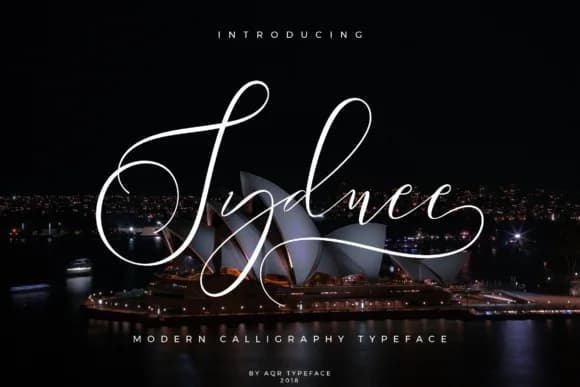
Sydnee by Aqr Typeface is a flowing script font that brings sophisticated elegance to brand identities and printed materials. Its refined letterforms work particularly well for wedding invitation suites, luxury fashion packaging, and upscale beauty product labels that require a distinctive visual signature. The expansive character set of over 600 glyphs provides designers with exceptional flexibility, ensuring consistency whether applied to ornate product packaging, formal event stationery, or digital brand applications. Beyond traditional print contexts, Sydnee connects with contemporary audiences through its inherent versatility across multiple design scenarios. Boutique cosmetics labels, engagement announcements, artisanal gift packaging, and premium greeting cards all benefit from the typeface's refined grace and professional presence. The script's consistent letterform flow makes it equally effective for prominent headline typography or delicate decorative accents, allowing designers to create layered visual hierarchies without compromising sophistication. Sydnee succeeds where many decorative fonts fail, it maintains readability while delivering genuine character and distinction. The graceful curves and balanced proportions suggest hand-lettering with intentional precision, giving projects an artisanal quality that resonates with design-conscious audiences. Whether crafting luxury brand materials or personal stationery, this script brings the refined touch that separates thoughtfully designed work from the ordinary. Download Sydnee from Creative Fabrica to add this versatile script to your design toolkit.
- Elegant, Flowing, Sydnee
Sydnee Font is a script font that shines as a display or heading face. Pair it with a clean sans-serif or serif font for body text β the contrast creates a clear hierarchy while the two styles stay balanced and easy to read.
Sydnee Font